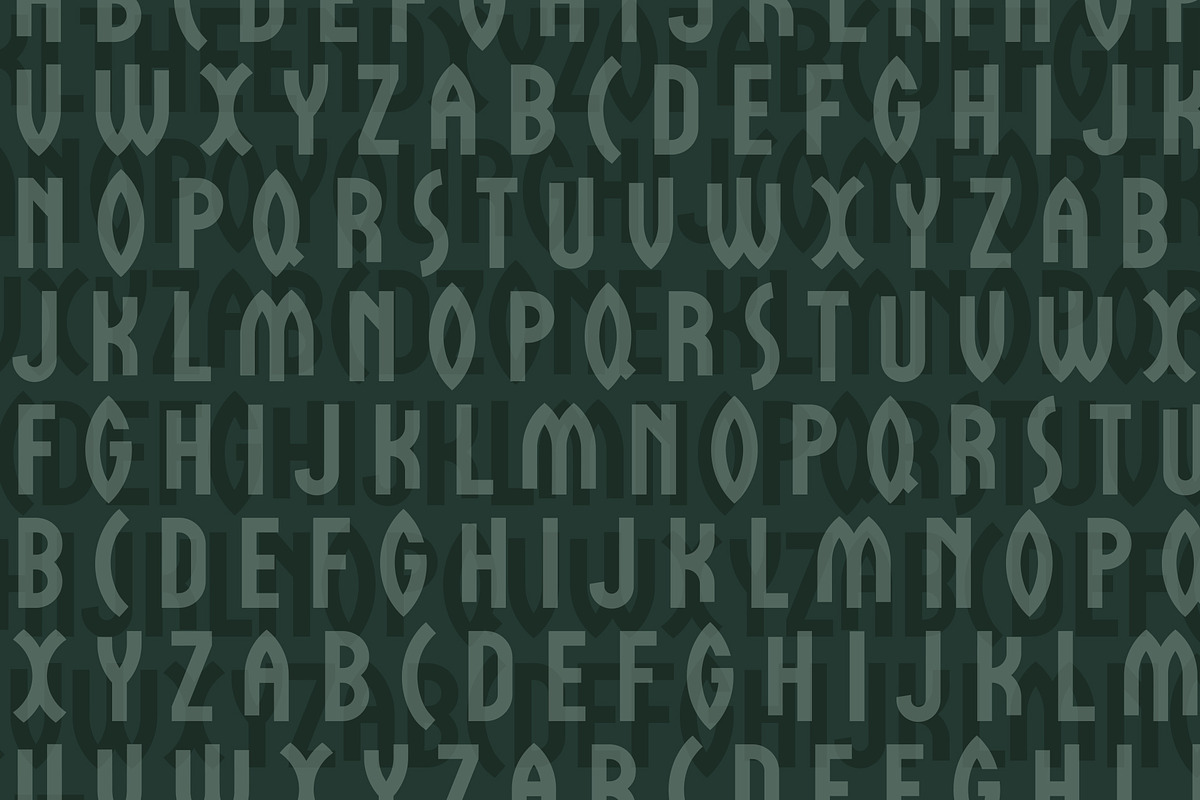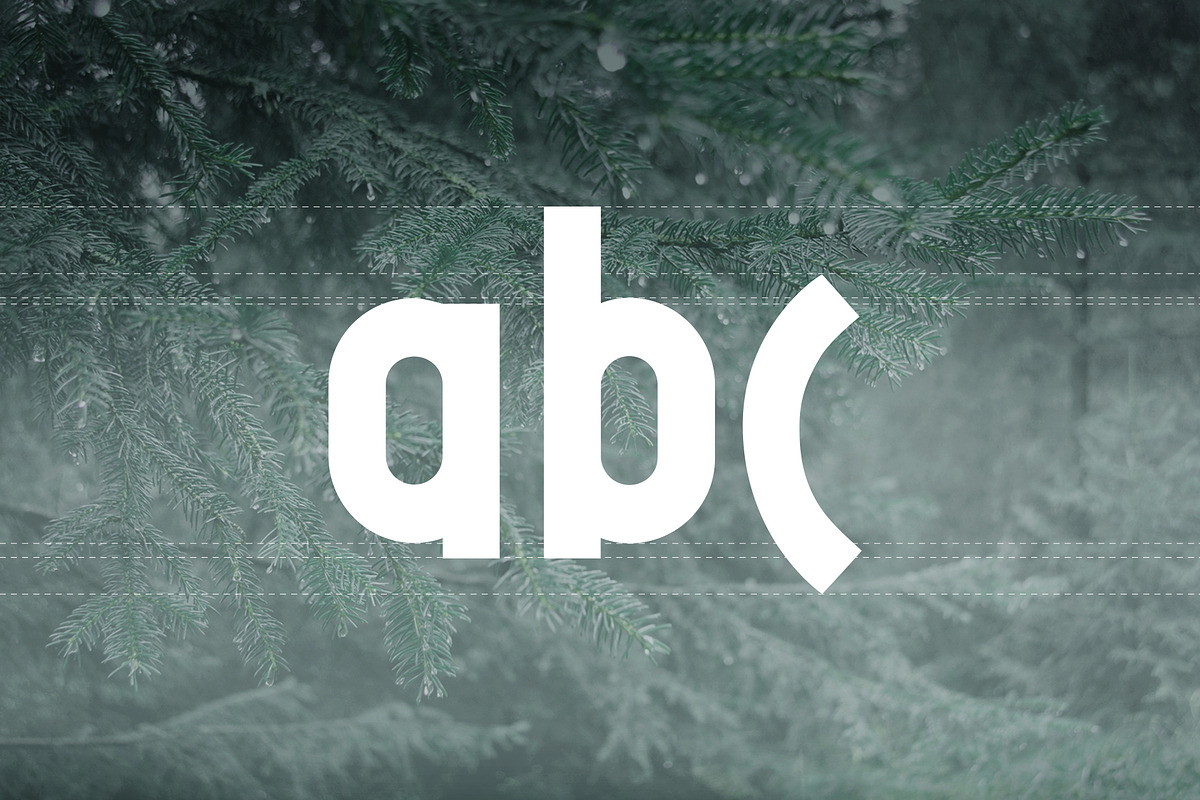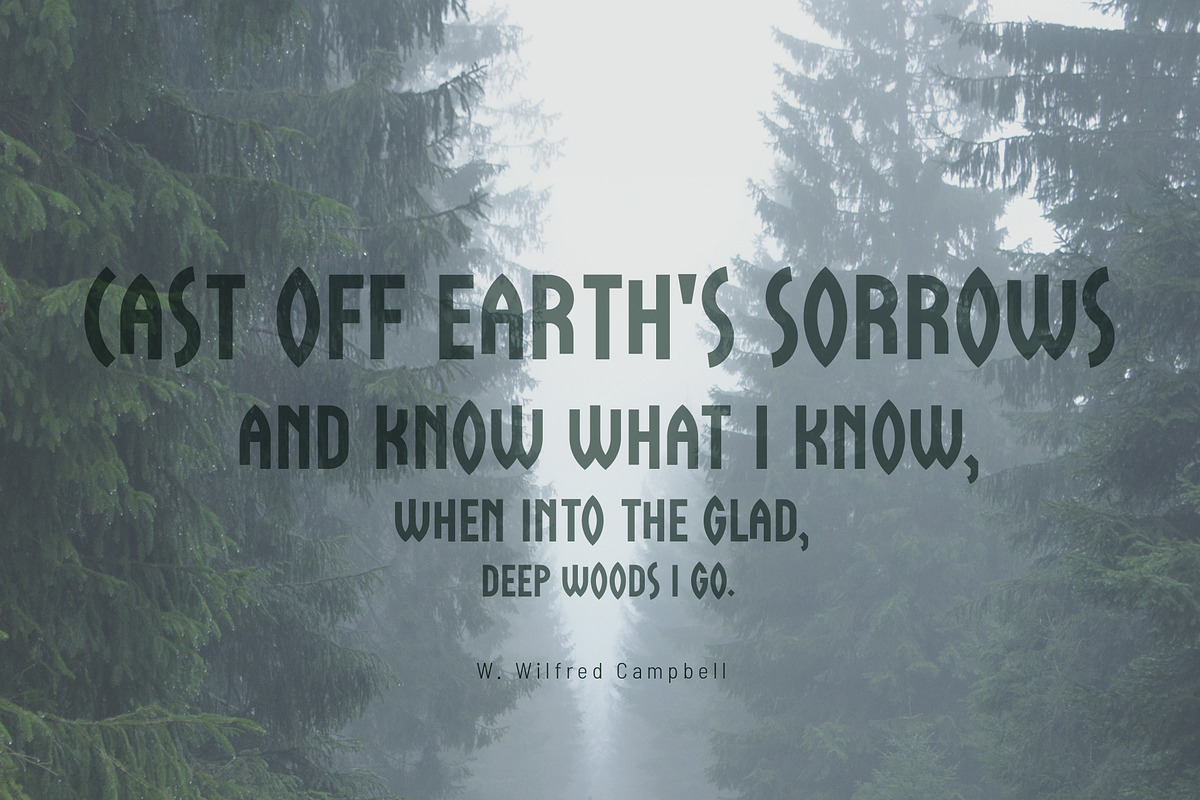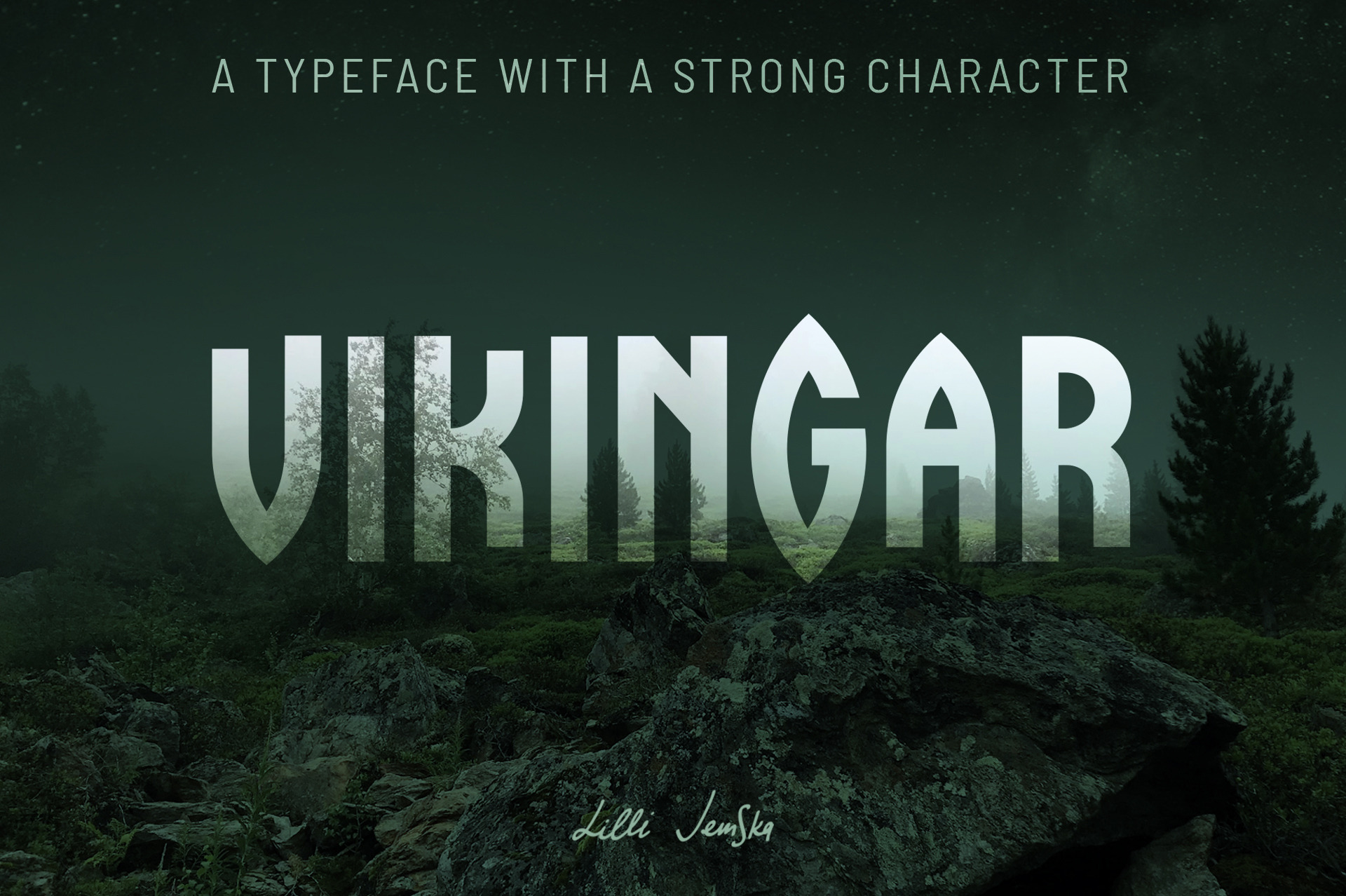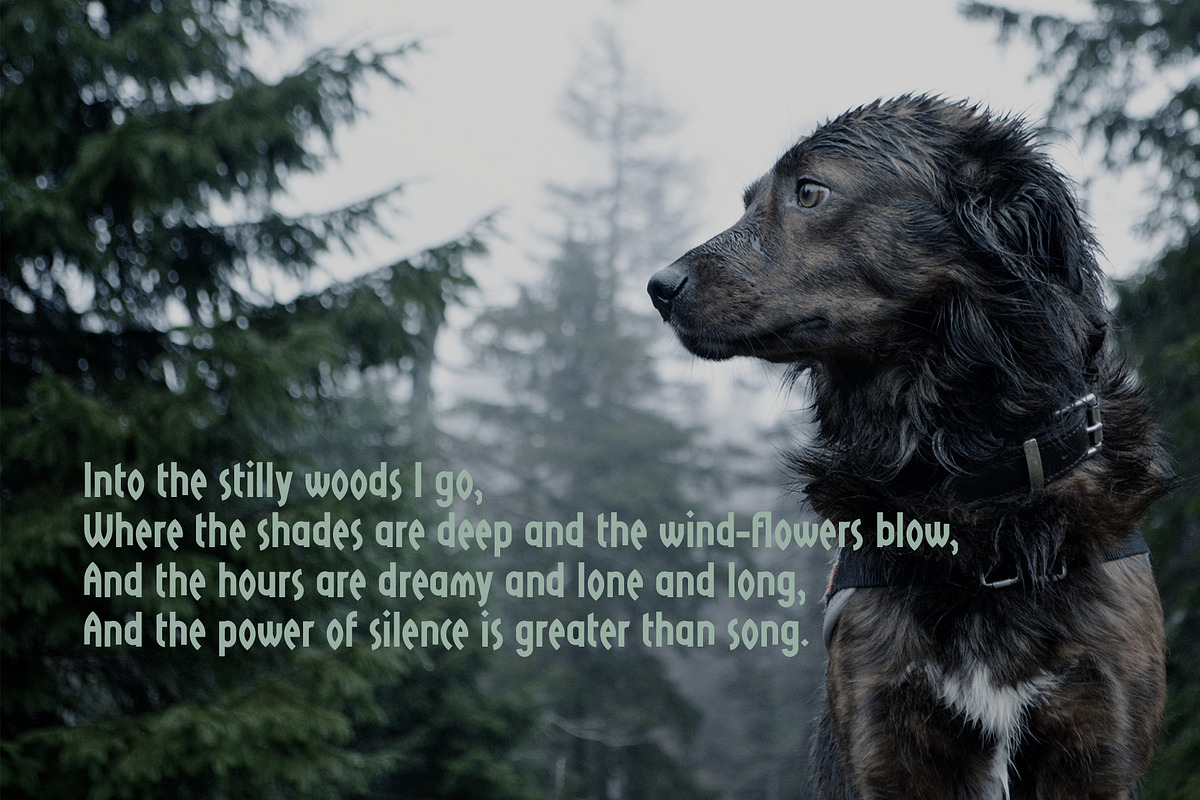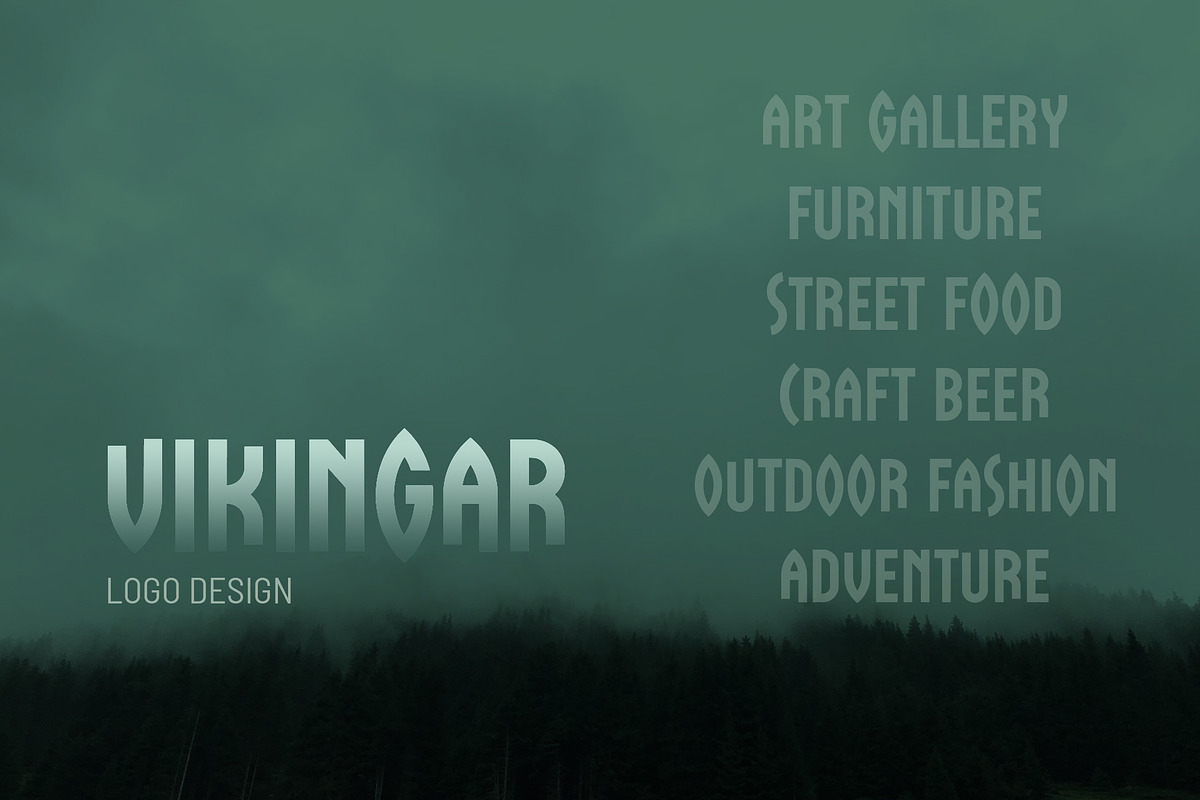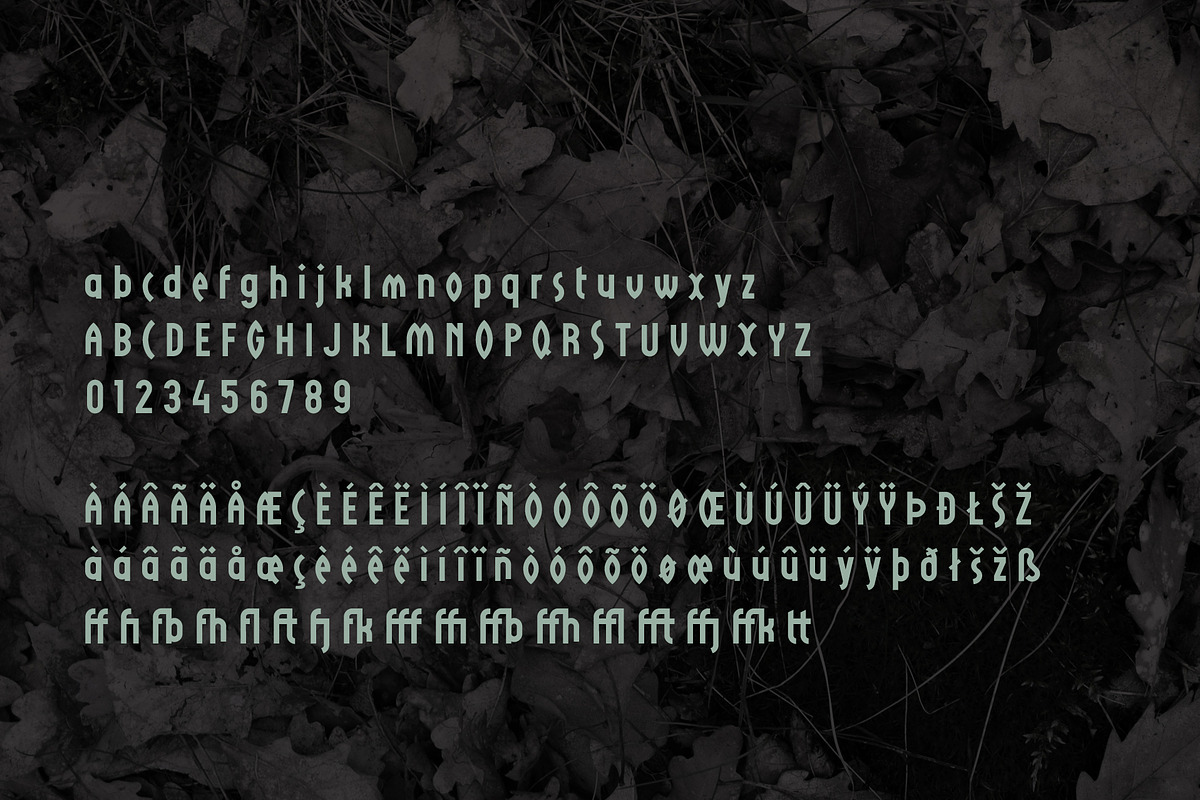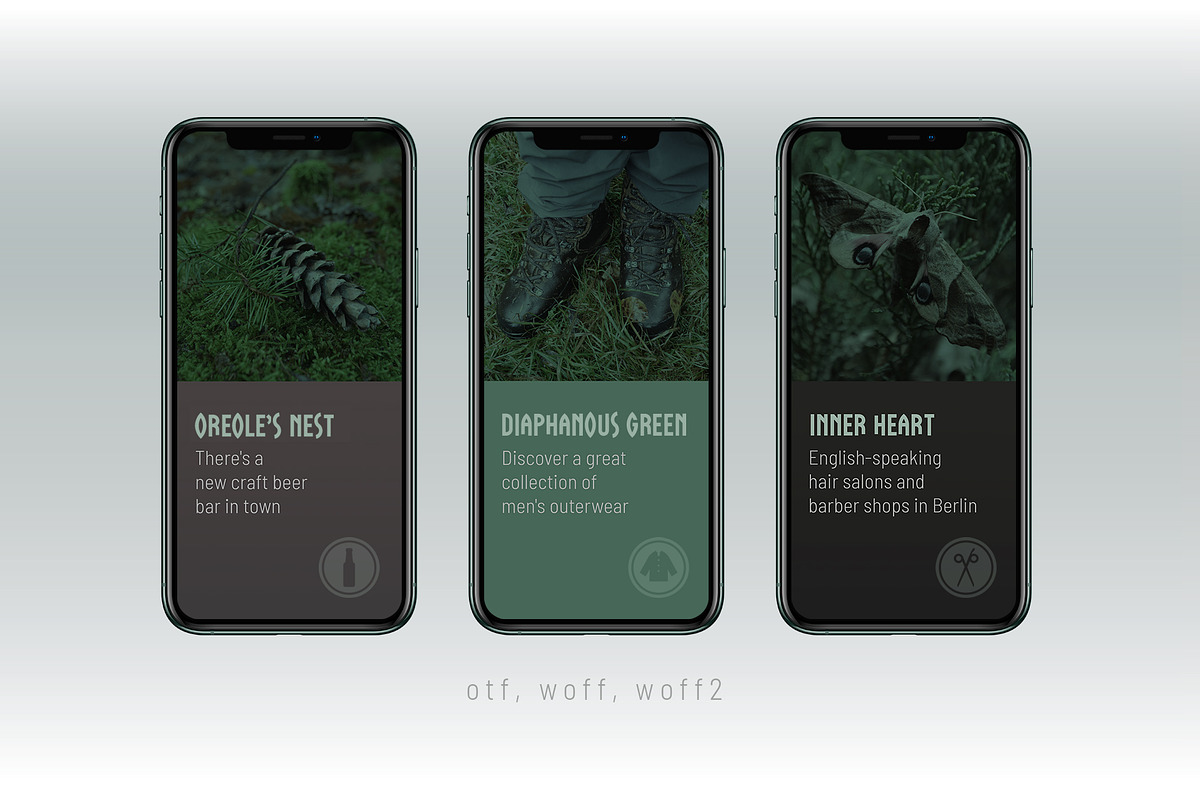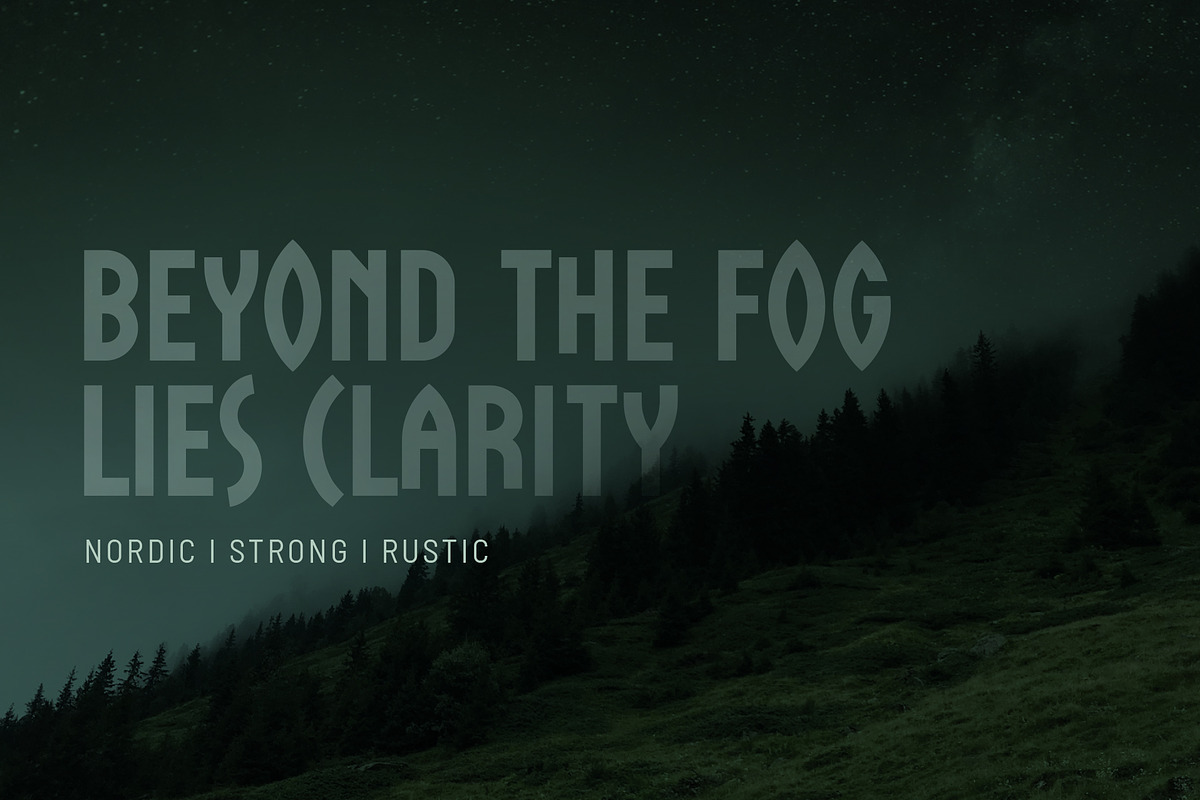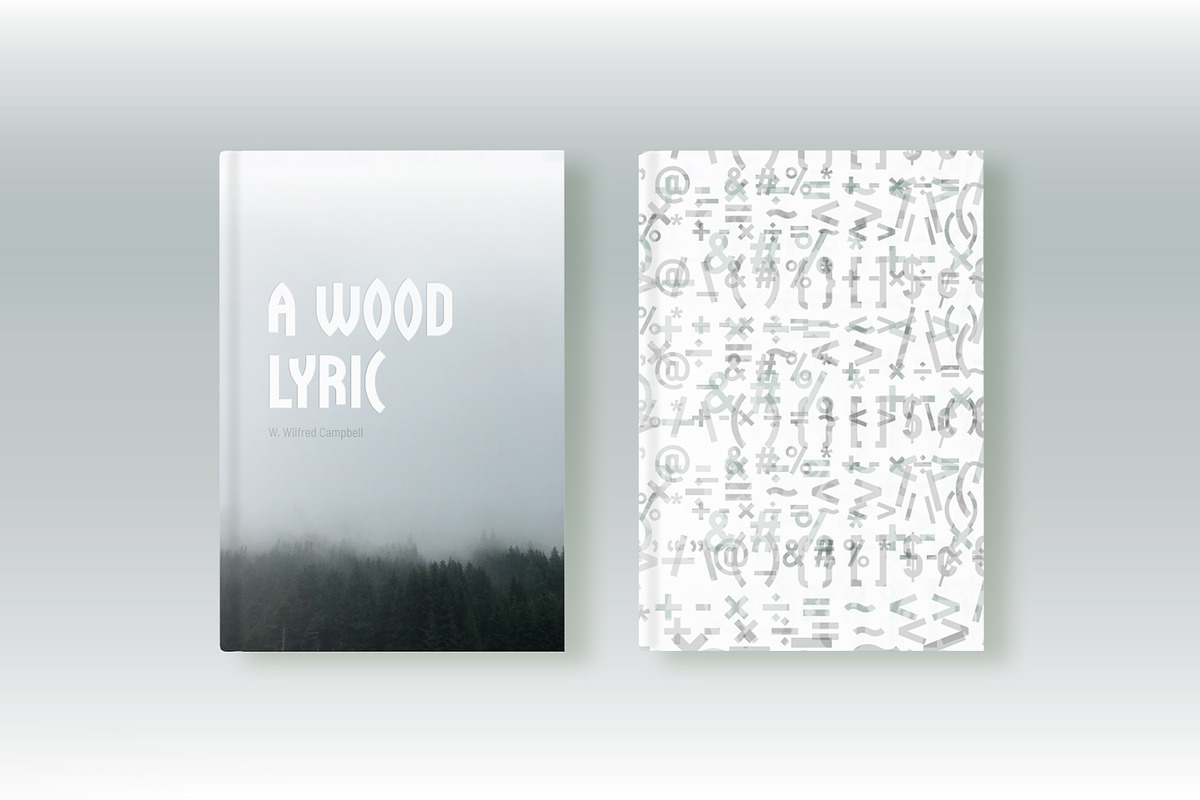
VIKINGAR display font
NORDIC I STRONG I RUSTIC
VIKINGAR is inspired by nordic nature. This font is both modern and rustic and works great in branding, packaging, logos, game design, headlines and fashion. It pairs beautifully with a minimal sans serif font.